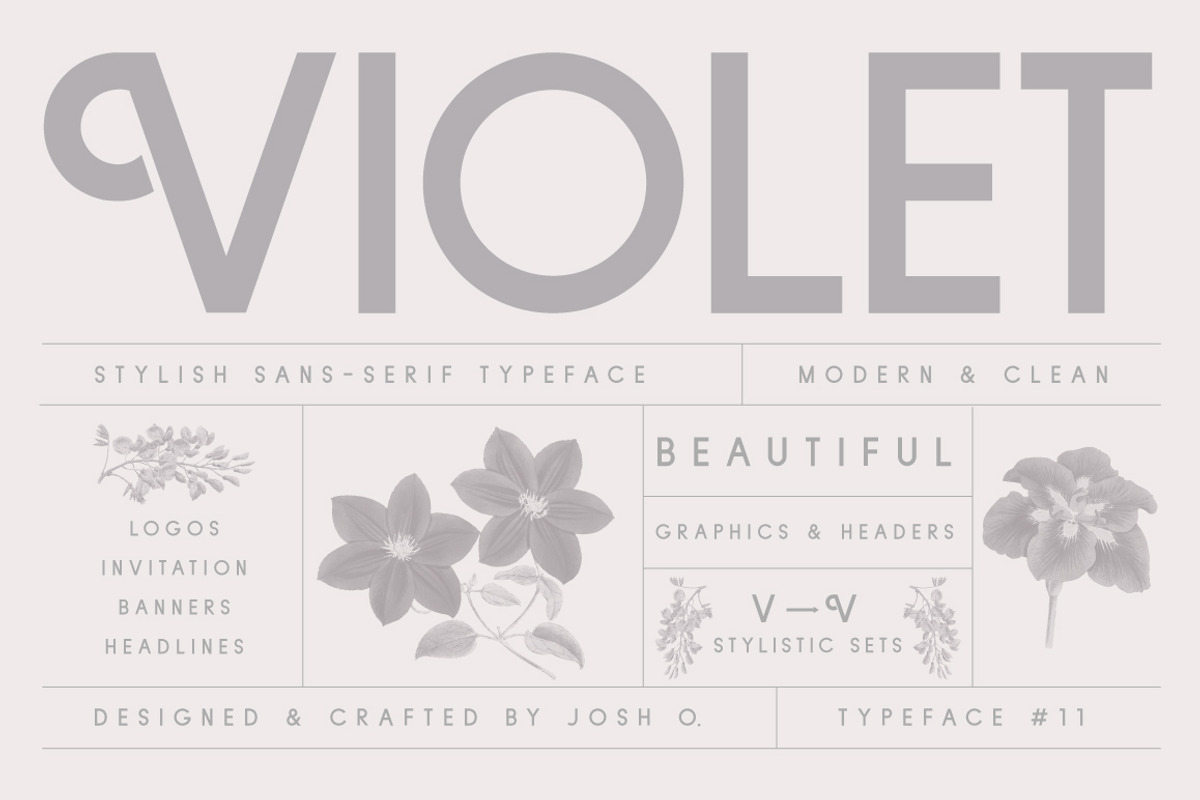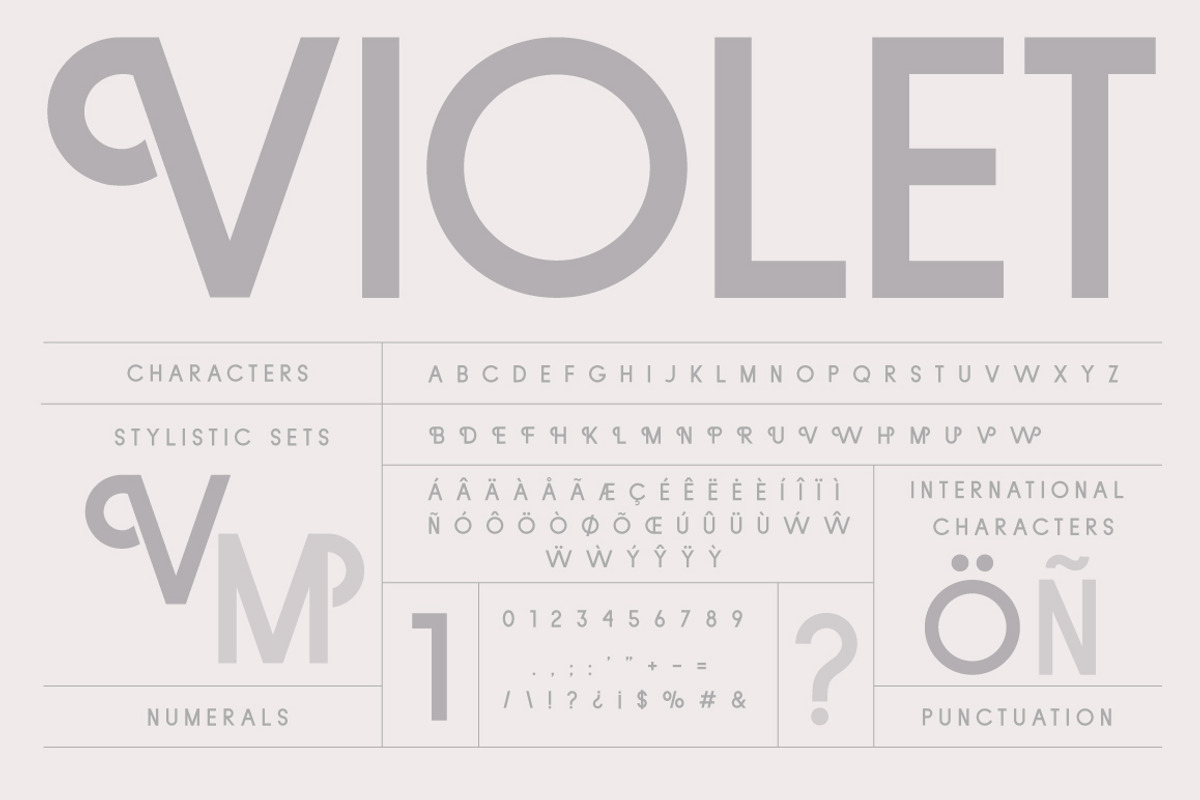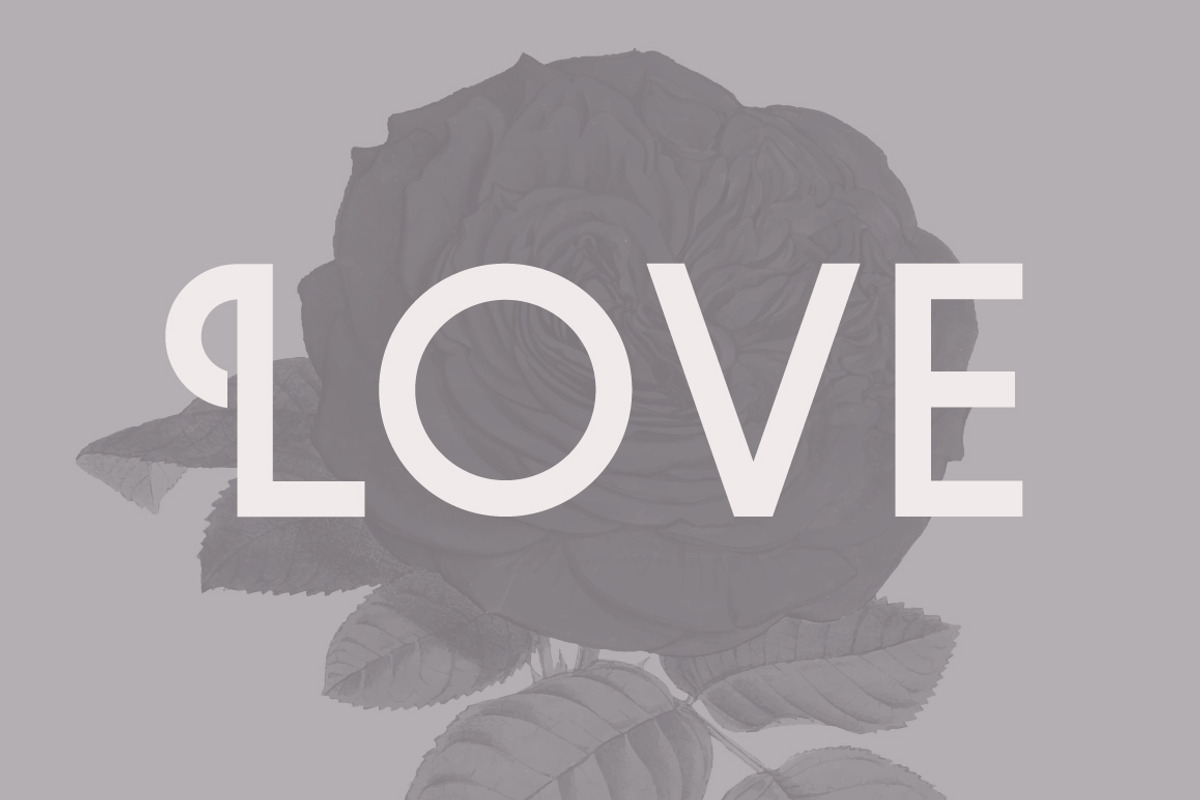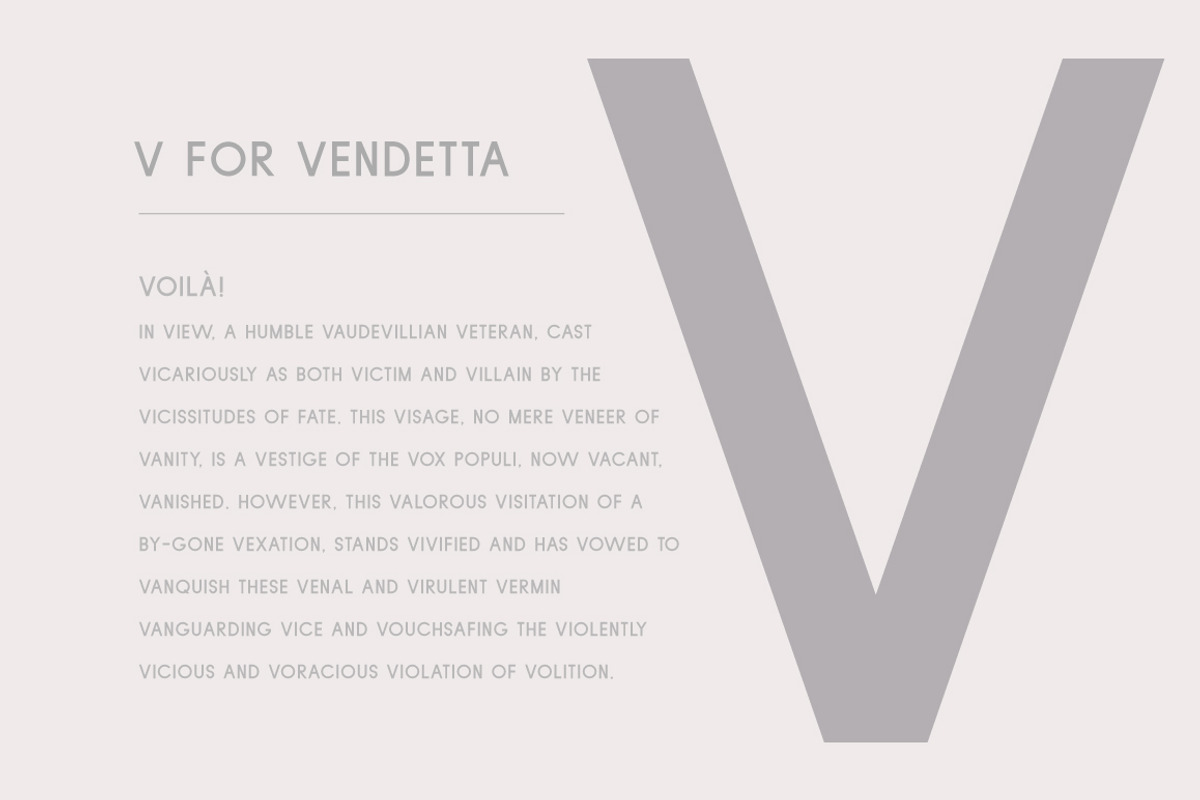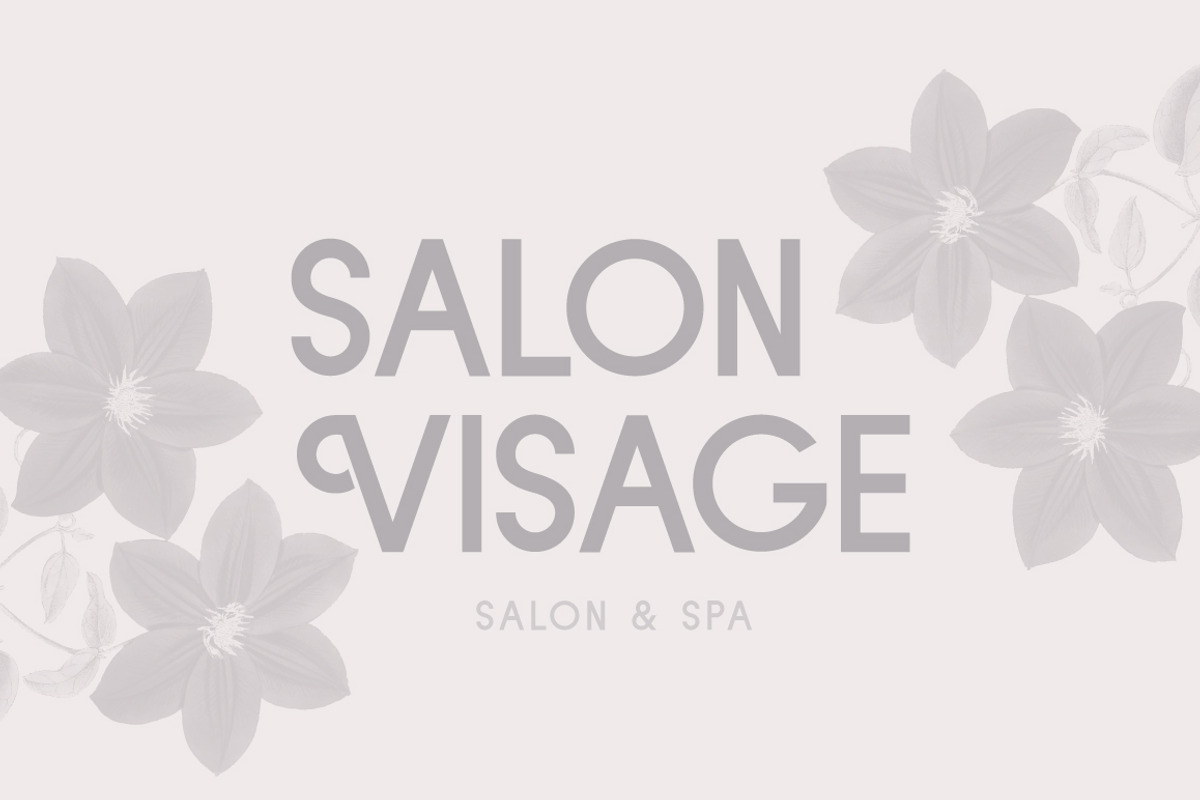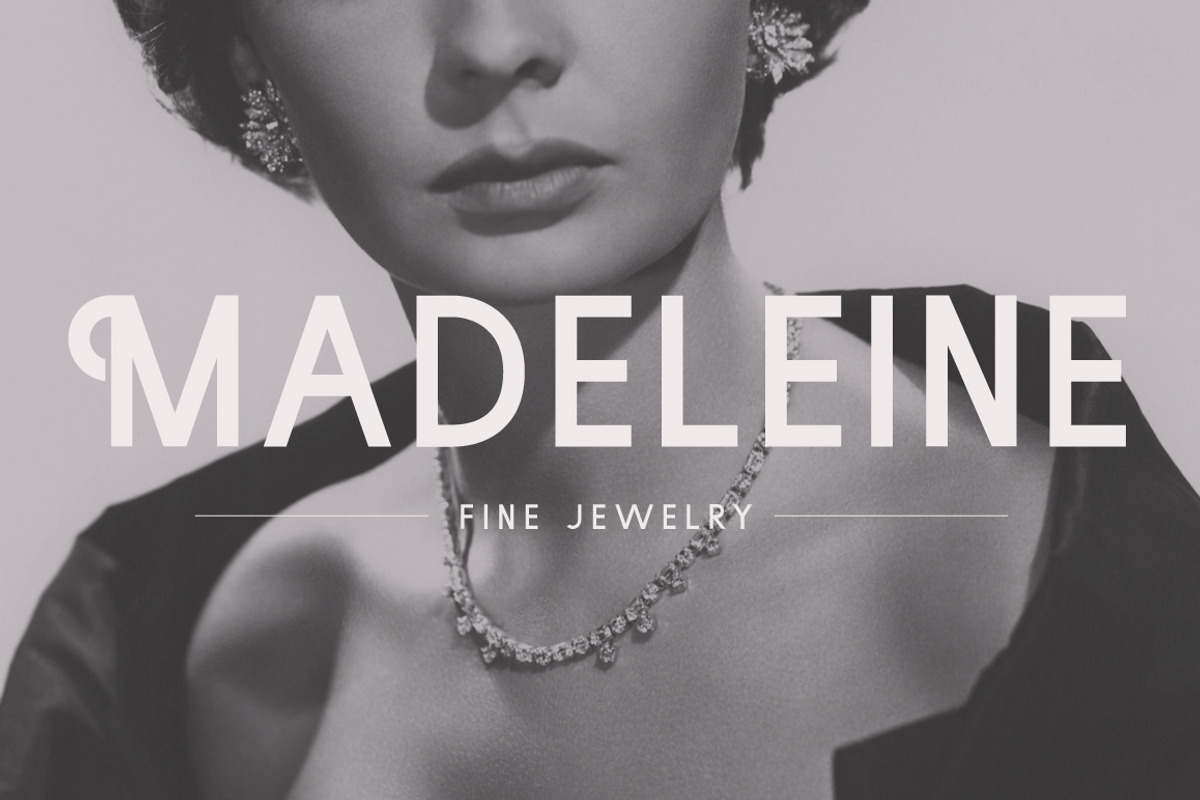
Violet | A Stylish Sans Serif
Violet, A Stylish Sans Serif
Introducing Violet, a modern and stylish sans-serif typeface that is perfect for creating elegant display graphics, wedding invitations, logos, headers, and more. Violet pairs nicely with floral graphics and vintage illustrations, yet it is versatile enough to use for any type project. Try Violet today for your next project.
Stylistic Alternatives
International Characters